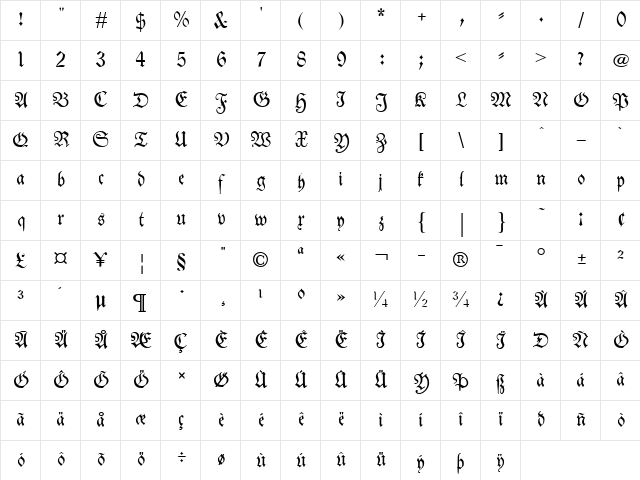
Neue Theuerdank Fraktur UNZ1 Italic
Foundry: Peter Wiegel
Design Context for Neue Theuerdank Fraktur UNZ1
Neue Theuerdank Fraktur UNZ1 draws on the rich tradition of blackletter calligraphy, with dense, angular strokes that evoke medieval manuscripts and old-world craftsmanship. The slanted form adds forward momentum and visual energy.
Font Pairing: Pair with a clean neutral sans-serif for body copy to let Neue Theuerdank Fraktur UNZ1's character lead without overwhelming the composition.
Pro Tip: Reserve Neue Theuerdank Fraktur UNZ1 for display and logo use - pair it with a clean sans-serif for body copy to prevent the composition from feeling oppressive.